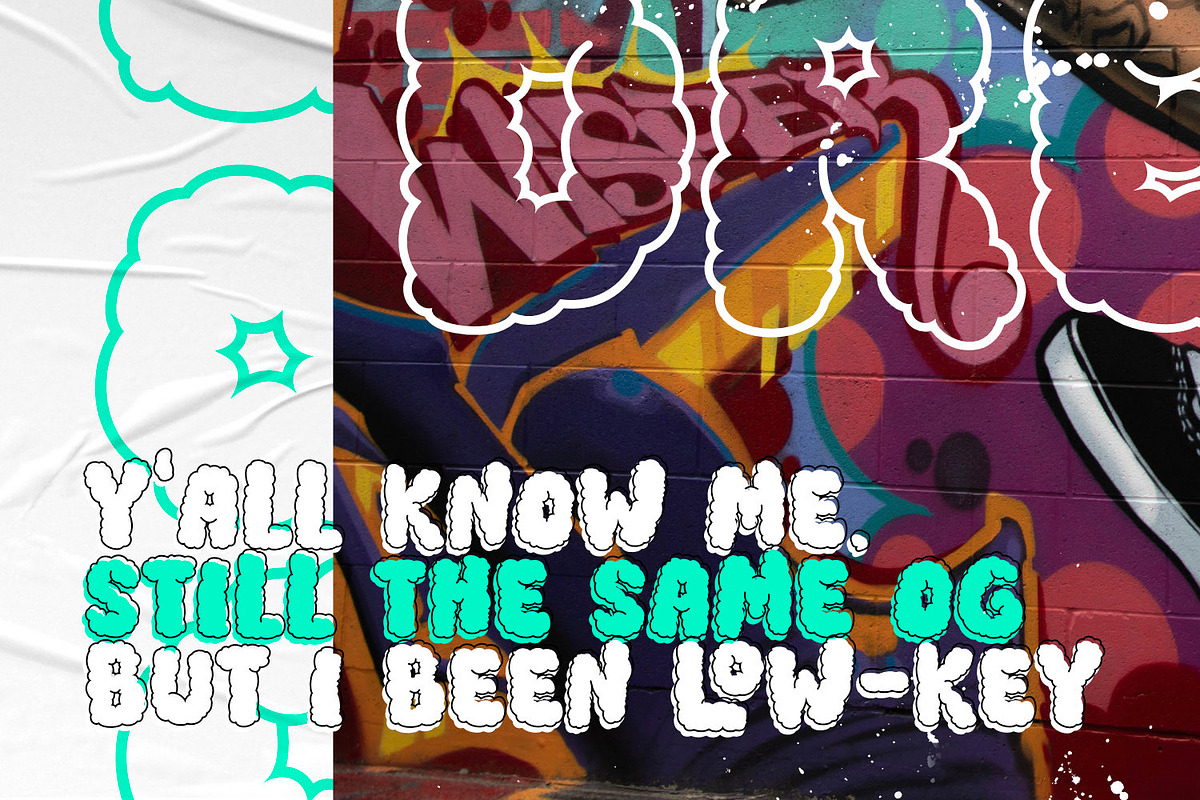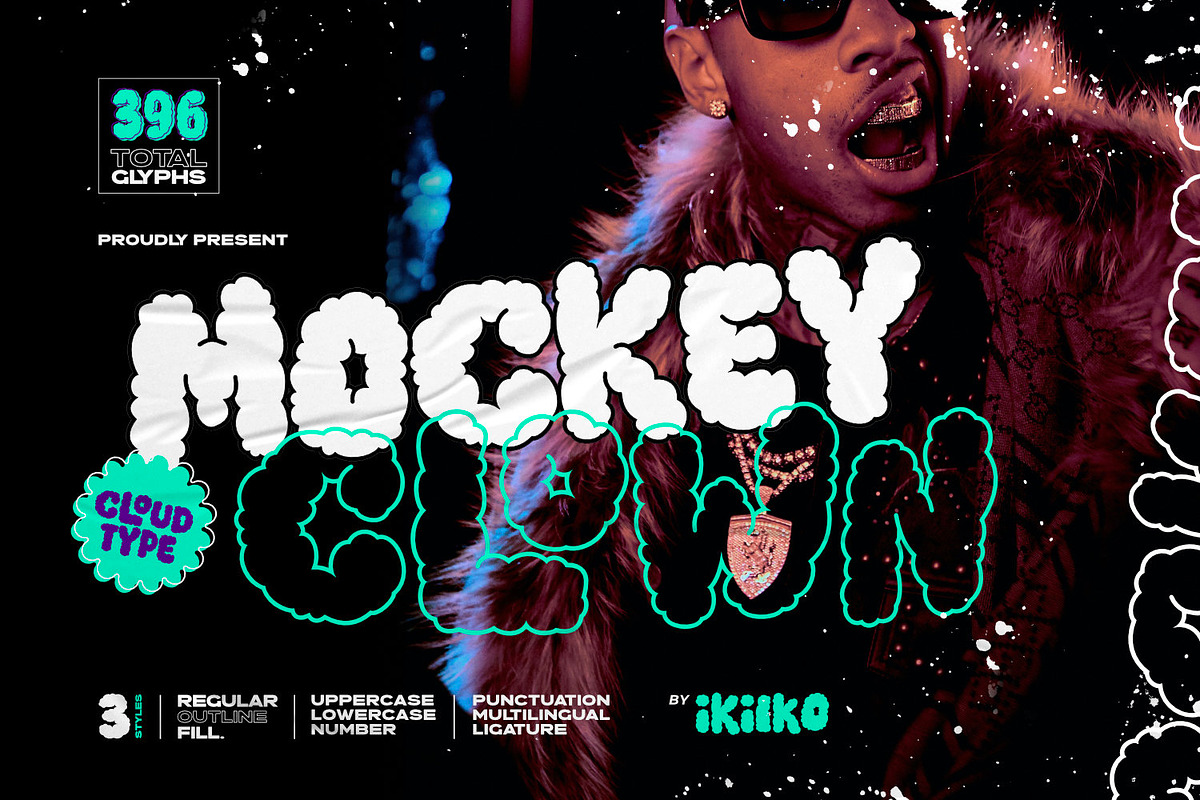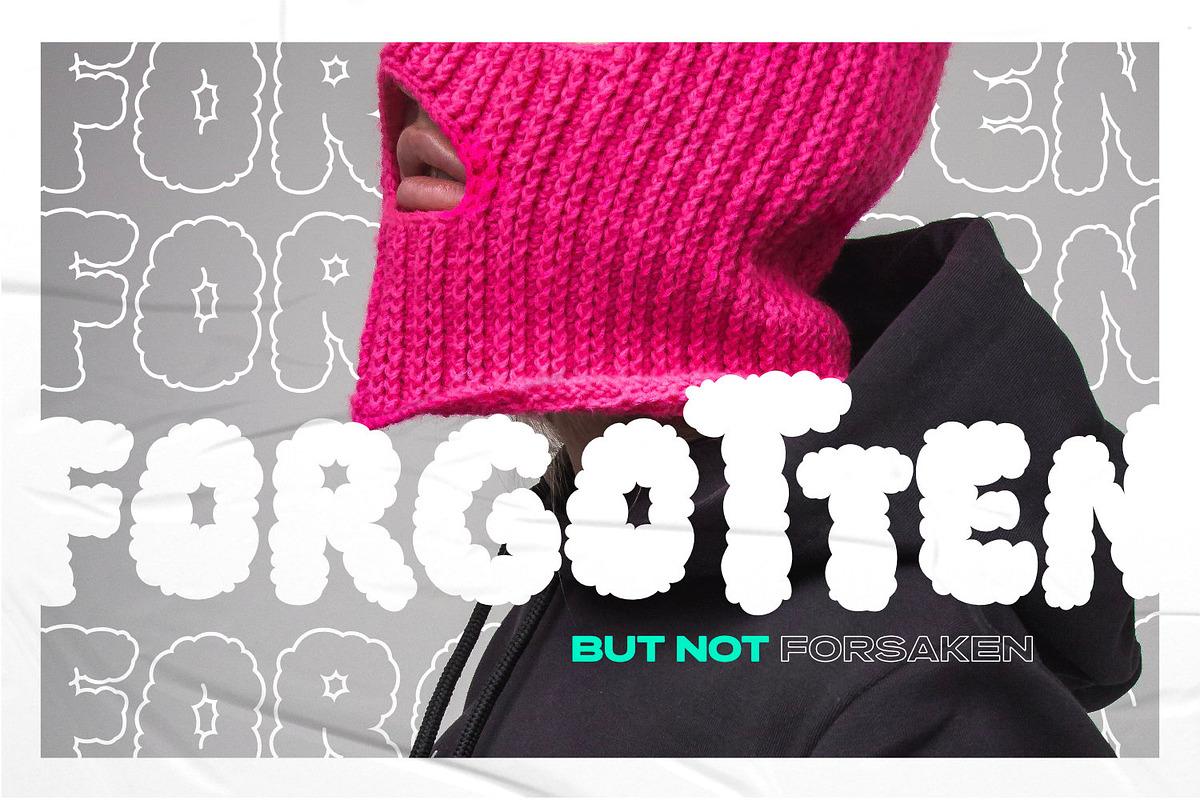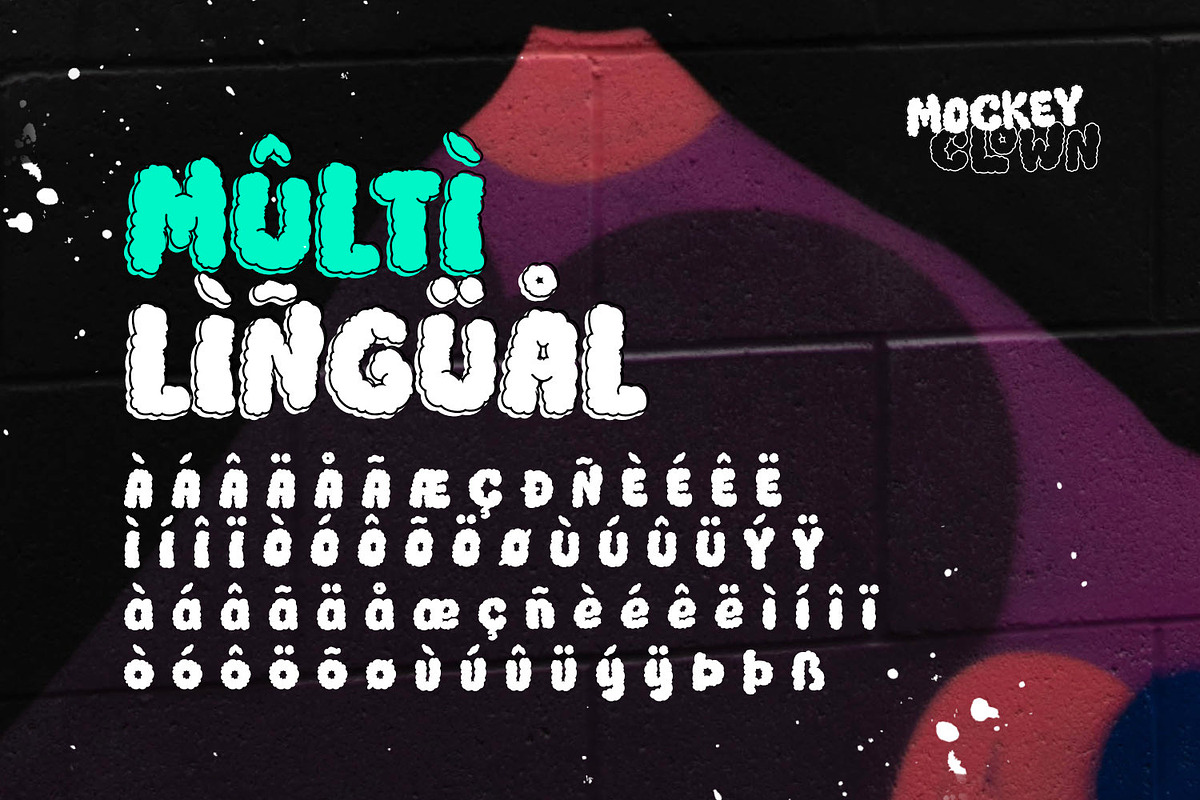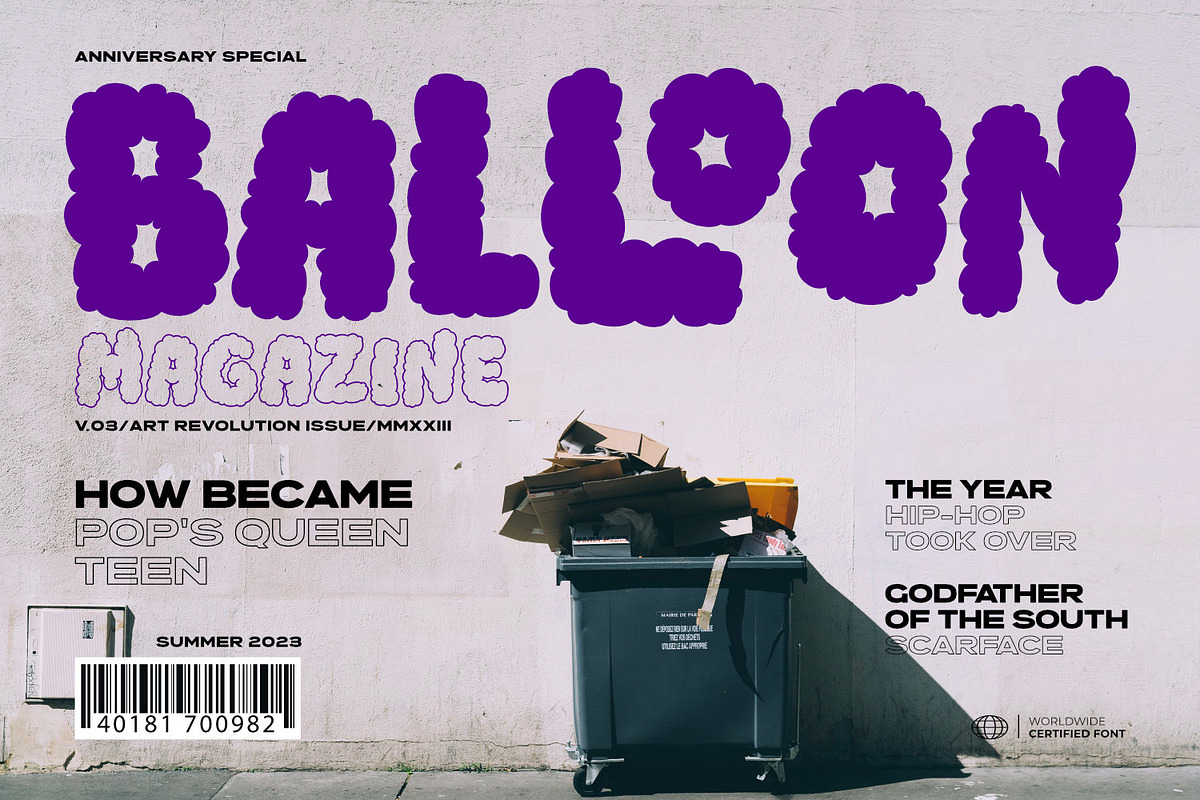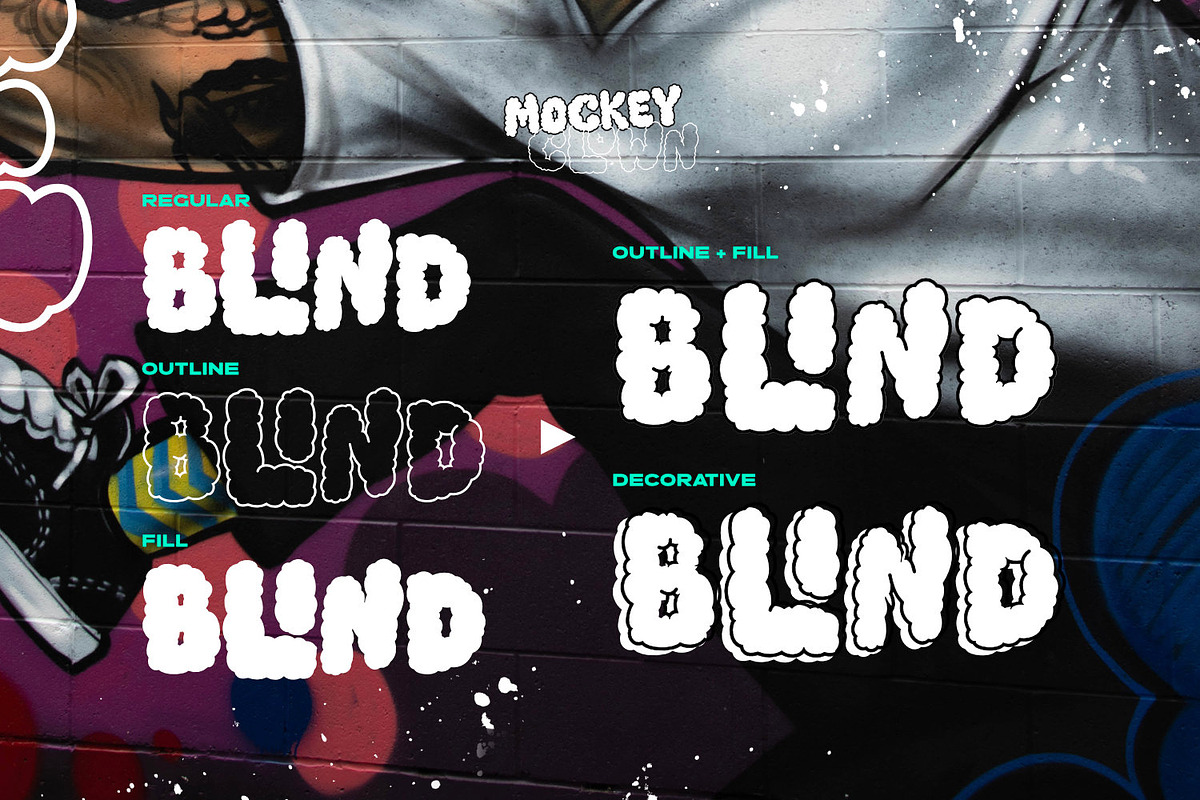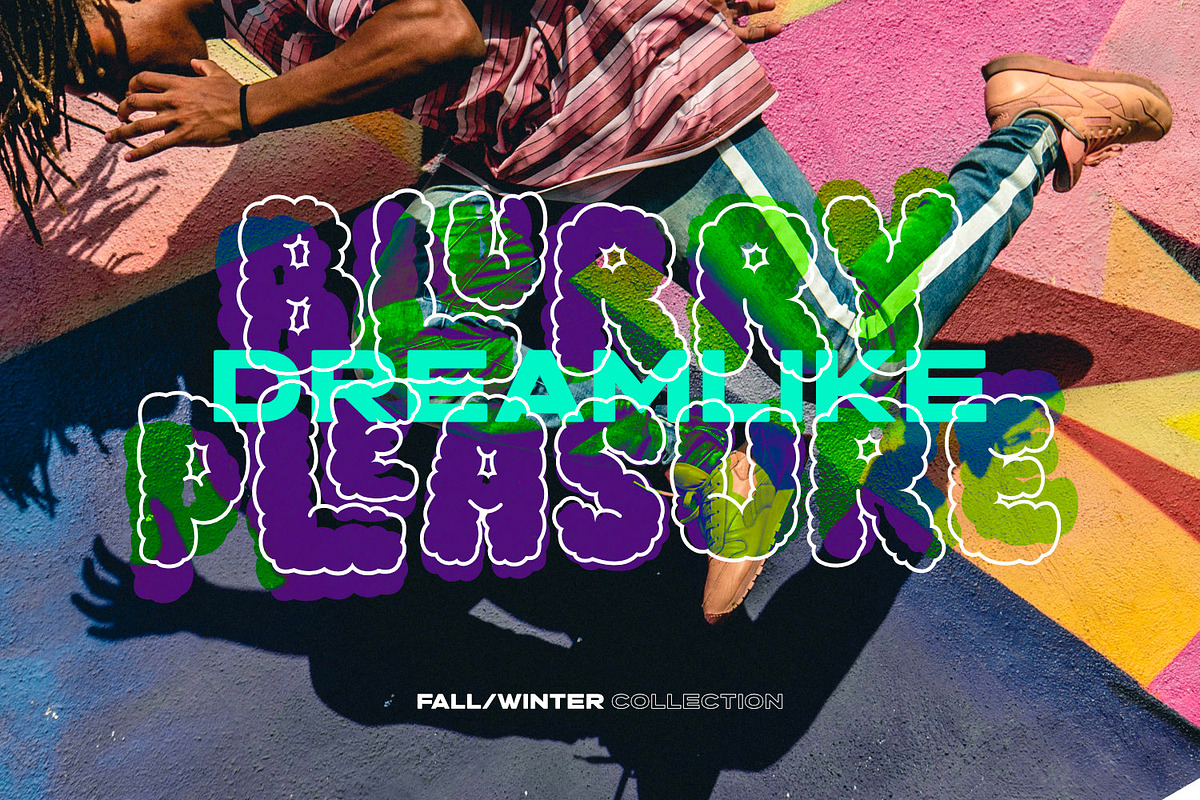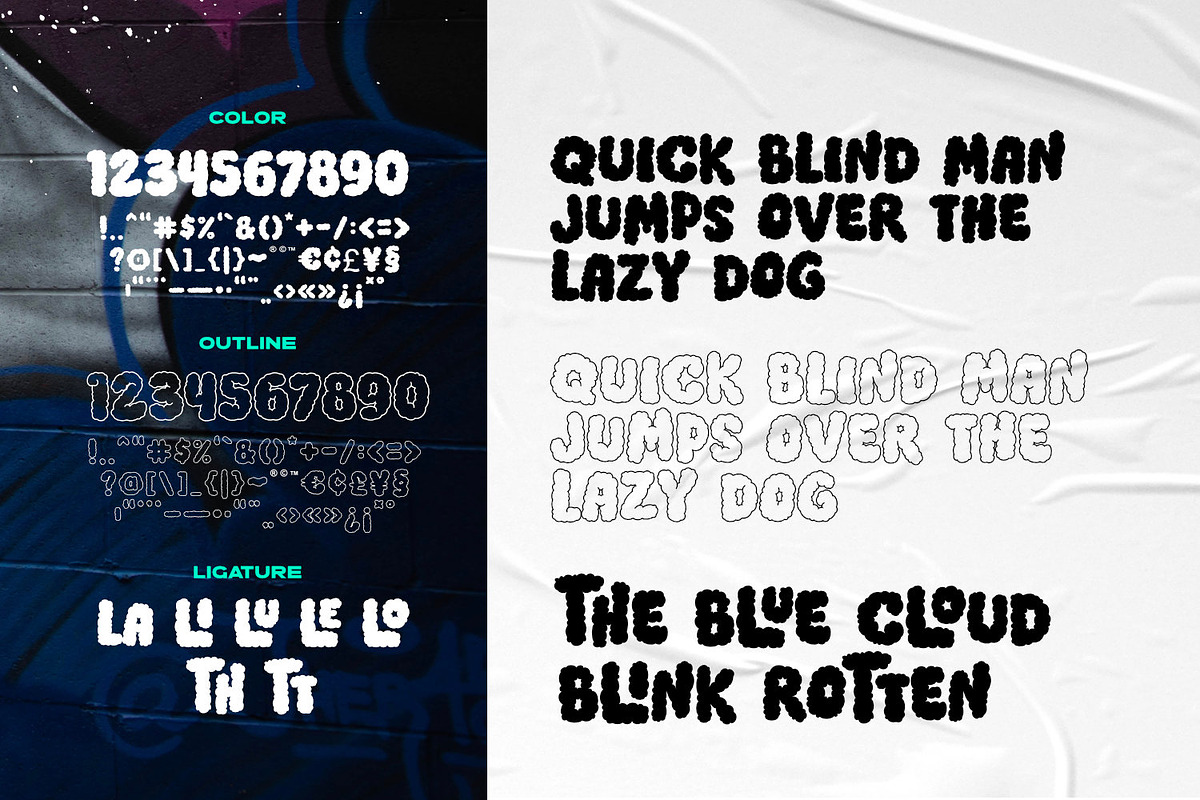
Mockey Clown - Cloud Type
Proudly present Mockey Clown - Cloud Type, created by ikiiko
Mockey Clown is a decorative hipster font in a cloud style. This font is a contemporary and stylish typeface that is ideal for any creative project looking for a distinctive and trendy look.
This font style is ideal for designs that need to communicate a sense of movement and whimsy because it has rounded edges, flowing lines, and a slightly bolder appearance. This letter has 3 styles that you can mix or play with to make it more decorative with the addition of bold or contrasting colors, creating a trendy look that is perfect for modern designs. Overall, this typeface is a sleek, customizable choice for any design project that needs a fresh, trendy look.
This typeface is perfect for an youth stuff, magazine layout, poster, fashion brand, urban style, quotes, or simply as a stylish text overlay to any background image.
- 3 Styles : Regular / Outline / Fill
- Ligature (Bonus)